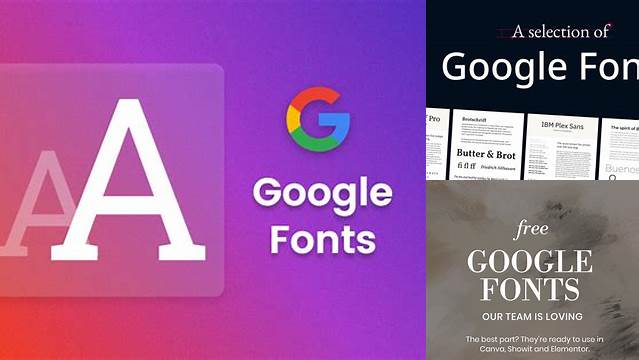
Best Google Fonts: Elevate Your Website's Design
Choosing the right fonts can dramatically improve your website's appeal and readability. With Google Fonts, you have a vast library of free, high-quality fonts at your fingertips. This article will guide you through the top Google Fonts for websites, helping you make informed decisions to elevate your site's design. Let's dive in!
1. Understanding the Importance of Font Choice
Guys, let's talk fonts! Choosing the right font for your website is way more important than you might think. It's not just about making things look pretty (though that's definitely a bonus!). Your font choice significantly impacts readability, user experience, and even your brand's overall perception. Think about it: a cluttered, hard-to-read font can drive visitors away faster than you can say "bounce rate." A clean, professional font, on the other hand, can keep them engaged and coming back for more.
So, how do you pick the perfect font? First, consider your target audience. Are you catering to a younger, more casual crowd? Or are you aiming for a sophisticated, corporate vibe? Your font should reflect that. Next, think about the content itself. Is it long-form articles, short snippets of text, or something in between? Different fonts work better for different types of content. And finally, don't forget about readability. Even the most beautiful font is useless if no one can actually read it! So, take your time, experiment with different options, and find a font that not only looks great but also enhances the overall user experience.
To further elaborate, remember that a font is more than just the letters; it's the personality of your text. A playful, quirky font might be perfect for a children's website, but it would look completely out of place on a law firm's page. Similarly, a heavy, bold font might convey strength and authority, while a lighter, more delicate font could evoke feelings of elegance and sophistication. Your font choice should always align with your brand's identity and the message you're trying to convey.
2. Top Google Fonts for Headlines: Making a Statement
Headlines are your chance to grab attention and make a statement. When it comes to headline fonts, you want something that's bold, eye-catching, and easy to read. Some fantastic choices from Google Fonts include Montserrat, Playfair Display, and Raleway. Montserrat is a versatile sans-serif font that works well in a variety of contexts. Playfair Display is a classic serif font with a touch of elegance, perfect for more sophisticated websites. And Raleway is a modern sans-serif font that's both stylish and readable. Remember, your headlines are the first thing visitors see, so make sure they make a lasting impression.
Also think about contrast. If your body text is a simple sans-serif, consider using a more decorative serif font for your headlines to create visual interest. Or, if your body text is already quite bold, you might want to opt for a lighter, more understated headline font. The key is to create a harmonious balance that's both visually appealing and easy on the eyes. Don't be afraid to experiment with different font pairings until you find something that feels just right. And remember, less is often more. A clean, simple headline font can be just as effective (if not more so) than a flashy, over-the-top one.
Don't underestimate the power of size and spacing either. Your headlines should be significantly larger than your body text to create a clear visual hierarchy. And pay attention to line height and letter spacing to ensure optimal readability. A headline that's too cramped or too spread out can be just as difficult to read as one that's in a bad font. So, take the time to fine-tune these details and make sure your headlines are as impactful as possible.
3. Best Google Fonts for Body Text: Readability is Key
For body text, readability is paramount. You want a font that's easy on the eyes and won't cause fatigue, even after reading long passages. Some great options from Google Fonts include Open Sans, Lato, and Roboto. Open Sans is a clean, neutral sans-serif font that's incredibly versatile. Lato is a slightly more rounded sans-serif font that feels warm and friendly. And Roboto is a modern sans-serif font that's both stylish and highly readable. These fonts are all designed to be comfortable to read, even at small sizes, making them perfect for body text.
Consider the overall tone and style of your website when choosing a body text font. If you're going for a modern, minimalist look, a clean sans-serif font like Open Sans or Lato would be a great choice. If you want something with a bit more personality, you could try a slightly more decorative sans-serif font like Montserrat or Raleway. And if you're aiming for a classic, traditional feel, a serif font like Georgia or Times New Roman might be a good option. Just make sure whatever font you choose is easy to read and doesn't distract from your content.
Also, pay attention to the font size and line height. Your body text should be large enough to be easily readable, but not so large that it feels overwhelming. And the line height should be generous enough to allow the eye to move comfortably from one line to the next. A good rule of thumb is to set the line height to around 1.5 times the font size. Experiment with different settings until you find something that feels comfortable and visually appealing.
4. Pairing Google Fonts: Creating Visual Harmony
Pairing fonts can be tricky, but when done right, it can create a visually stunning and harmonious website. A common approach is to pair a serif font for headlines with a sans-serif font for body text, or vice versa. This creates contrast and visual interest, while still maintaining readability. For example, you could pair Playfair Display (a serif font) with Open Sans (a sans-serif font), or Montserrat (a sans-serif font) with Merriweather (a serif font). There are tons of great combinations out there, so don't be afraid to experiment and find what works best for your site.
Use online tools and resources to help you find font pairings. There are many websites and apps that offer suggestions for font combinations that work well together. These tools can be a great way to get inspired and discover new and interesting font pairings that you might not have thought of on your own. Just remember to take these suggestions with a grain of salt and always test them out on your own website to see how they look in context.
Consider the overall design and branding of your website. Your font pairings should complement the other visual elements of your site, such as your logo, color scheme, and imagery. If you have a bold, modern logo, you might want to choose a clean, minimalist font pairing. If your website has a more traditional, elegant feel, you might opt for a classic serif and sans-serif combination. The key is to create a cohesive and harmonious visual experience that reflects your brand's identity.
5. Using Google Fonts Effectively: Best Practices
To use Google Fonts effectively, there are a few best practices to keep in mind. First, always link to Google Fonts in the <head> section of your HTML document. This ensures that the fonts are loaded quickly and efficiently. Second, specify the font-weight and font-style in your CSS to ensure that the fonts are displayed correctly. Third, test your fonts on different devices and browsers to make sure they look good across the board. And finally, don't use too many fonts on a single website. Stick to a maximum of two or three fonts to avoid creating a cluttered and confusing design.
Optimize your font loading for performance. Google Fonts are generally pretty lightweight, but if you're using a lot of different font weights or styles, it can still slow down your website's loading time. To optimize your font loading, only load the font weights and styles that you actually need. You can also use font-display: swap; in your CSS to ensure that your text is visible even before the fonts have fully loaded.
Consider using a web font loader to manage your fonts. Web font loaders are JavaScript libraries that help you load your web fonts asynchronously and provide more control over the font loading process. They can also help you detect when your fonts have finished loading and trigger a callback function to update your website's layout or perform other actions. Some popular web font loaders include Webfont Loader and Font Face Observer.
6. Google Fonts and SEO: Impact on Website Ranking
While Google Fonts themselves don't directly impact your website's SEO, they can indirectly influence your ranking. A well-designed website with readable fonts can improve user engagement, reduce bounce rates, and increase time on site. These are all factors that Google considers when ranking websites. So, by choosing the right Google Fonts and using them effectively, you can improve your website's overall user experience and boost your SEO.
Ensure your website is mobile-friendly. With more and more people browsing the web on their mobile devices, it's essential to make sure your website is optimized for mobile. This includes choosing fonts that are easily readable on small screens and ensuring that your website's layout is responsive and adapts to different screen sizes. Google gives preference to mobile-friendly websites in its search results, so optimizing your website for mobile is crucial for SEO.
Use semantic HTML and proper heading tags. Semantic HTML is HTML that uses meaningful tags to structure your content, such as <article>, <aside>, <nav>, and <footer>. Using semantic HTML can help Google understand the structure and content of your website, which can improve your SEO. Also, make sure to use proper heading tags (
, , , etc.) to structure your content and create a clear hierarchy. Google uses heading tags to understand the main topics and subtopics of your website, so using them correctly is important for SEO.
7. Exploring Serif Google Fonts for a Classic Look
, etc.) to structure your content and create a clear hierarchy. Google uses heading tags to understand the main topics and subtopics of your website, so using them correctly is important for SEO.
7. Exploring Serif Google Fonts for a Classic Look
If you're aiming for a classic, elegant look, serif Google Fonts are the way to go. These fonts have small decorative strokes (serifs) at the end of each letter, giving them a traditional and sophisticated feel. Some popular serif fonts include Playfair Display, Merriweather, and Lora. Playfair Display is great for headlines, while Merriweather and Lora are excellent choices for body text. Using serif fonts can add a touch of timeless elegance to your website.
Consider the personality and mood you want to convey. Serif fonts can evoke different feelings depending on their style and weight. A heavy, bold serif font can convey strength and authority, while a lighter, more delicate serif font can evoke feelings of elegance and sophistication. Choose a serif font that aligns with your brand's identity and the message you're trying to convey.
Pair serif fonts with sans-serif fonts for a balanced look. A common design technique is to pair a serif font for headlines with a sans-serif font for body text, or vice versa. This creates contrast and visual interest, while still maintaining readability. For example, you could pair Playfair Display (a serif font) with Open Sans (a sans-serif font), or Montserrat (a sans-serif font) with Merriweather (a serif font).
8. Sans-Serif Google Fonts: Modern and Clean
For a modern and clean aesthetic, sans-serif Google Fonts are an excellent choice. These fonts lack the serifs, giving them a simple and minimalist appearance. Open Sans, Lato, and Roboto are fantastic sans-serif options that are widely used for websites. They are highly readable and versatile, making them suitable for various design styles.
Use sans-serif fonts for body text to improve readability. Sans-serif fonts are generally easier to read on screens than serif fonts, especially at smaller sizes. This makes them an ideal choice for body text, where readability is paramount. A clean, simple sans-serif font can help your readers focus on your content without being distracted by ornate letterforms.
Mix and match sans-serif fonts with different weights and styles. Even within the sans-serif category, there's a wide range of different styles and weights to choose from. You can create visual interest and hierarchy by using different weights of the same font for headlines and body text, or by pairing two different sans-serif fonts that complement each other.
9. Display Google Fonts: Adding Personality and Flair
Display Google Fonts are designed to be eye-catching and attention-grabbing. They're perfect for headlines, logos, and other prominent design elements where you want to make a statement. Some popular display fonts include Lobster, Pacifico, and Dancing Script. These fonts have unique and distinctive styles that can add personality and flair to your website.
Use display fonts sparingly and strategically. Display fonts are not meant to be used for long passages of text, as they can be difficult to read. Instead, use them sparingly and strategically to highlight key elements of your design, such as headlines, logos, or call-to-action buttons. A little bit of a display font can go a long way in adding personality and visual interest to your website.
Pair display fonts with more neutral fonts for a balanced look. Because display fonts are so visually dominant, it's important to pair them with more neutral fonts for body text and other supporting elements. This will help to create a balanced and harmonious design that's both eye-catching and easy to read. A good rule of thumb is to use a simple sans-serif font like Open Sans or Lato for body text when using a display font for headlines.
10. Monospace Google Fonts: Coding and Technical Content
Monospace Google Fonts are a unique category where each character occupies the same amount of horizontal space. This makes them ideal for displaying code, technical content, and other situations where consistent spacing is important. Some excellent monospace fonts include Source Code Pro, Fira Mono, and Roboto Mono. These fonts are clean, readable, and specifically designed for technical environments.
Use monospace fonts for code snippets and technical documentation. Monospace fonts are essential for displaying code snippets and technical documentation, as they ensure that the code is properly aligned and easy to read. The consistent spacing of monospace fonts makes it easier to identify syntax errors and other issues in the code.
Consider using a different font for the rest of your website. While monospace fonts are great for displaying code, they're not typically used for the rest of the website's content. This is because they can be less readable than other font types, especially for long passages of text. It's generally best to use a different font for the main body of your website and reserve monospace fonts for code snippets and technical documentation.
11. Font Weight and Style: Creating Visual Hierarchy
Font weight and style (e.g., bold, italic) are powerful tools for creating visual hierarchy and emphasizing important information on your website. By varying the weight and style of your fonts, you can guide the reader's eye and highlight key elements of your content. Use bold text to emphasize important keywords or phrases, and use italics to add nuance or indicate quoted material.
Use different font weights to create a visual hierarchy. Different font weights (e.g., 100, 300, 400, 700, 900) can be used to create a visual hierarchy and guide the reader's eye. Use heavier font weights for headlines and subheadings to make them stand out, and use lighter font weights for body text to make it easier to read. A well-defined visual hierarchy can make your content more engaging and easier to understand.
Use italics sparingly to add emphasis and nuance. Italics can be a great way to add emphasis and nuance to your text, but they should be used sparingly. Overusing italics can make your text look cluttered and difficult to read. Reserve italics for quoted material, book titles, and other situations where you want to add a subtle touch of emphasis.
12. Font Size and Line Height: Optimizing Readability
Font size and line height are critical factors in optimizing readability. Your font size should be large enough to be easily readable, but not so large that it feels overwhelming. And your line height (the vertical space between lines of text) should be generous enough to allow the eye to move comfortably from one line to the next. A good rule of thumb is to set the line height to around 1.5 times the font size.
Use a font size that is comfortable to read on different devices. With more and more people browsing the web on their mobile devices, it's important to choose a font size that is comfortable to read on small screens. A font size of 16px is generally considered to be a good starting point for body text, but you may need to adjust it depending on the specific font and your target audience.
Adjust the line height to improve readability. The line height can have a significant impact on readability. A line height that is too small can make the text feel cramped and difficult to read, while a line height that is too large can make the text feel disconnected. Experiment with different line heights until you find something that feels comfortable and visually appealing.
13. Letter Spacing and Word Spacing: Fine-Tuning Typography
Letter spacing (the horizontal space between letters) and word spacing (the horizontal space between words) are subtle but important aspects of typography. Fine-tuning these settings can improve the overall readability and visual appeal of your text. In general, you want to avoid letter spacing that is too tight or too loose, as both can make the text difficult to read.
Adjust letter spacing to improve readability and visual appeal. The default letter spacing for most fonts is usually fine, but you may want to adjust it slightly to improve readability or visual appeal. If the letters in your font are too close together, you can increase the letter spacing to make them more distinct. If the letters are too far apart, you can decrease the letter spacing to make the text feel more cohesive.
Use word spacing to create visual rhythm and flow. Word spacing can also be used to create visual rhythm and flow in your text. A slightly wider word spacing can make the text feel more open and airy, while a narrower word spacing can make the text feel more compact and dense. Experiment with different word spacings until you find something that feels right for your specific font and content.
14. Color Contrast: Ensuring Accessibility and Readability
Color contrast is a critical factor in ensuring accessibility and readability. Your text color should have sufficient contrast with the background color to make it easy to read for people with visual impairments. The Web Content Accessibility Guidelines (WCAG) recommend a contrast ratio of at least 4.5:1 for normal text and 3:1 for large text.
Use online tools to check color contrast. There are many online tools available that can help you check the color contrast of your text and background. These tools will calculate the contrast ratio and tell you whether it meets the WCAG guidelines. Some popular color contrast checkers include WebAIM's Contrast Checker and Accessible Colors.
Consider using a dark text on a light background. In general, a dark text on a light background is easier to read than a light text on a dark background. This is because our eyes are naturally drawn to dark objects on light backgrounds. However, there are situations where a light text on a dark background may be appropriate, such as for headlines or call-to-action buttons.
15. Responsive Typography: Adapting to Different Screen Sizes
Responsive typography is the practice of adapting your typography to different screen sizes and devices. This ensures that your text is always readable and visually appealing, regardless of how your website is being viewed. To achieve responsive typography, you can use CSS media queries to adjust the font size, line height, letter spacing, and other typographic properties based on the screen size.
Use CSS media queries to adjust font sizes for different screen sizes. CSS media queries allow you to apply different styles based on the screen size, device orientation, or other characteristics of the user's device. You can use media queries to adjust the font size of your text for different screen sizes, ensuring that it is always readable and comfortable to read.
Consider using relative units for font sizes and line heights. Relative units, such as em and rem, are based on the font size of the root element or the parent element. This makes them ideal for creating responsive typography, as they will automatically scale based on the font size. Using relative units can help you create a more fluid and adaptable design that looks great on any device.
16. Web Font Optimization: Improving Website Performance
Web font optimization is the process of improving the performance of your website by optimizing the way your web fonts are loaded and displayed. Web fonts can add significant weight to your website, so it's important to optimize them to ensure that they don't slow down your site. Some common web font optimization techniques include using font subsets, compressing font files, and caching font files.
Use font subsets to reduce font file size. Font subsets are smaller versions of your font files that only contain the characters that are actually used on your website. By using font subsets, you can significantly reduce the size of your font files, which can improve your website's loading time. Many web font services, such as Google Fonts, offer font subsets as an option.
Consider using a CDN to serve your web fonts. A Content Delivery Network (CDN) is a network of servers that are distributed around the world. By serving your web fonts from a CDN, you can ensure that they are loaded quickly and efficiently for users all over the world. Some popular CDN providers include Cloudflare, Amazon CloudFront, and Google Cloud CDN.
17. Font Licensing: Understanding Usage Rights
Font licensing is an important consideration when using web fonts. Most fonts are not free to use for any purpose, and you need to obtain a license that grants you the right to use the font in a particular way. Google Fonts are generally licensed under the Open Font License (OFL), which allows you to use, modify, and distribute the fonts for free, even for commercial purposes. However, it's always a good idea to check the specific license for each font to make sure you are complying with the terms of use.
Check the license terms before using any font. Before using any font, whether it's a Google Font or a font from another source, make sure to check the license terms to understand your usage rights. The license terms will specify how you are allowed to use the font, whether you can modify it, and whether you can distribute it to others.
Attribute the font designer when required. Some font licenses require you to attribute the font designer when using the font. This is a way of giving credit to the creator of the font and promoting their work. If the font license requires attribution, make sure to include a statement on your website or in your design credits that acknowledges the font designer.
18. Testing Your Fonts: Ensuring Cross-Browser Compatibility
Testing your fonts is an essential step in the design process. You need to test your fonts on different browsers and devices to make sure they are rendering correctly and consistently. Different browsers may render fonts differently, so it's important to identify any compatibility issues early on.
Use browser developer tools to inspect font rendering. Most browsers have built-in developer tools that allow you to inspect the font rendering on your website. You can use these tools to see which fonts are being used, how they are being rendered, and whether there are any rendering issues.
Test your fonts on different devices and operating systems. In addition to testing your fonts on different browsers, you should also test them on different devices and operating systems. This will help you identify any device-specific or operating system-specific rendering issues. For example, some fonts may render differently on Windows than they do on macOS.
19. Mobile Font Optimization: Enhancing Mobile User Experience
Mobile font optimization is the process of optimizing your web fonts for mobile devices. Mobile devices have smaller screens and limited bandwidth, so it's important to optimize your fonts to ensure that they load quickly and render correctly. Some common mobile font optimization techniques include using font subsets, compressing font files, and using responsive typography.
Use font subsets to reduce font file size for mobile devices. Font subsets are smaller versions of your font files that only contain the characters that are actually used on your website. By using font subsets, you can significantly reduce the size of your font files, which can improve your website's loading time on mobile devices.
Prioritize readability on smaller screens. When choosing fonts for mobile devices, prioritize readability over aesthetics. Choose fonts that are easy to read on small screens, even at smaller font sizes. Avoid using overly decorative or complex fonts, as they can be difficult to read on mobile devices.
20. Dynamic Font Loading: Improving Perceived Performance
Dynamic font loading is a technique that allows you to load your web fonts asynchronously, after the main content of your website has loaded. This can improve the perceived performance of your website, as it allows users to start viewing the content immediately, without having to wait for the fonts to load. Dynamic font loading can be implemented using JavaScript or CSS.
Use JavaScript to load fonts asynchronously. JavaScript can be used to load your web fonts asynchronously, after the main content of your website has loaded. This can be achieved by using the FontFace API, which allows you to load and register font faces dynamically. By loading your fonts asynchronously, you can improve the perceived performance of your website and provide a better user experience.
Consider using a font loading library. There are many font loading libraries available that can simplify the process of dynamic font loading. These libraries provide a convenient API for loading fonts asynchronously and handling font loading events. Some popular font loading libraries include Web Font Loader and Font Face Observer.
21. Variable Fonts: The Future of Web Typography
Variable fonts are a new font format that allows you to pack multiple font variations into a single font file. This can significantly reduce the size of your font files and improve the performance of your website. Variable fonts also offer greater flexibility and control over your typography, as they allow you to adjust various font properties, such as weight, width, and slant, on the fly.
Explore the possibilities of variable fonts. Variable fonts are a relatively new technology, but they have the potential to revolutionize web typography. Explore the possibilities of variable fonts and experiment with different font properties to create unique and dynamic typographic designs.
Use variable fonts to create responsive typography. Variable fonts can be used to create responsive typography that adapts to different screen sizes and devices. By adjusting the font weight, width, and slant based on the screen size, you can create a more fluid and adaptable design that looks great on any device.
22. Accessibility Considerations for Google Fonts
Accessibility is a critical aspect of web design, and it's important to consider accessibility when choosing and using Google Fonts. Ensure that your font choices meet accessibility guidelines, such as those provided by the Web Content Accessibility Guidelines (WCAG), to make your website usable for people with disabilities.
Ensure sufficient color contrast between text and background. Color contrast is a key factor in accessibility. Ensure that there is sufficient color contrast between your text and background colors to make your text easy to read for people with visual impairments. The WCAG recommends a contrast ratio of at least 4.5:1 for normal text and 3:1 for large text.
Provide alternative text for images and icons that use fonts. If you are using fonts to create images or icons, make sure to provide alternative text that describes the image or icon. This will allow screen readers to convey the meaning of the image or icon to visually impaired users.
23. Combining Google Fonts with Other Font Services
While Google Fonts offers a vast selection of free fonts, you may want to combine them with fonts from other font services to create a unique and distinctive typographic design. Many font services offer premium fonts that are not available on Google Fonts, and combining these fonts with Google Fonts can add a touch of sophistication and originality to your website.
Consider using premium fonts for branding elements. Premium fonts can be a great choice for branding elements, such as logos and headlines. These fonts often have a more unique and distinctive style than free fonts, which can help you create a strong and memorable brand identity.
Ensure consistent font rendering across different services. When combining fonts from different services, make sure to test them thoroughly to ensure that they are rendering consistently across different browsers and devices. Different font services may use different rendering engines, which can lead to inconsistencies in the way your fonts are displayed.
24. Typography Trends and Google Fonts
Typography trends are constantly evolving, and it's important to stay up-to-date on the latest trends to create a modern and stylish website. Google Fonts offers a wide selection of fonts that reflect current typography trends, such as geometric sans-serifs, bold display fonts, and vintage-inspired serifs.
Experiment with bold and oversized typography. Bold and oversized typography is a popular trend that can be used to create a strong visual impact. Experiment with using bold and oversized fonts for headlines and other prominent design elements to make a statement.
Use vintage-inspired serifs for a classic and timeless look. Vintage-inspired serifs are another popular trend that can be used to create a classic and timeless look. These fonts often have a more decorative and ornate style than modern serifs, which can add a touch of elegance and sophistication to your website.
25. Best Practices for Choosing Google Fonts for E-commerce
Choosing the right Google Fonts for your e-commerce website is crucial for creating a visually appealing and user-friendly online shopping experience. Prioritize readability, consistency, and branding to ensure that your font choices support your sales goals and enhance your customer's journey.
Ensure fonts are easy to read on product pages. Product pages are the heart of your e-commerce website, so it's essential to ensure that the fonts are easy to read and scan. Use clean and legible fonts for product descriptions, prices, and other important details.
Use consistent fonts across your entire e-commerce website. Consistency is key in e-commerce design. Use the same fonts consistently across your entire website, from the homepage to the checkout page, to create a cohesive and professional brand image.
26. Google Fonts and Branding: Creating a Visual Identity
Google Fonts play a significant role in creating a strong visual identity for your brand. Your font choices communicate your brand's personality, values, and target audience. Select fonts that align with your brand's overall aesthetic and message to reinforce your brand identity.
Choose fonts that reflect your brand's personality. Your fonts should reflect your brand's personality and values. If your brand is modern and minimalist, choose clean and simple sans-serif fonts. If your brand is classic and elegant, choose traditional serif fonts.
Use a consistent font palette across all your branding materials. Consistency is crucial for building a strong brand identity. Use the same font palette across all your branding materials, including your website, logo, marketing materials, and social media profiles.
27. Combining Google Fonts with Images: Visual Harmony
The combination of Google Fonts and images is a powerful way to create visual harmony on your website. Choose fonts that complement your images and create a cohesive and visually appealing design. Consider the color, style, and mood of your images when selecting your fonts.
Choose fonts that complement the style of your images. Your fonts should complement the style of your images. If your images are modern and minimalist, choose clean and simple sans-serif fonts. If your images are vintage-inspired, choose classic serif fonts.
Use color to create a visual connection between fonts and images. Color can be used to create a visual connection between your fonts and images. Choose font colors that complement the colors in your images to create a cohesive and harmonious design.
28. Using Google Fonts in Print Design: Considerations
While Google Fonts are primarily designed for web use, they can also be used in print design. However, there are some considerations to keep in mind when using Google Fonts in print, such as font resolution, color management, and licensing.
Ensure sufficient font resolution for print. Print design requires high-resolution fonts to ensure that they are crisp and clear. Google Fonts are typically designed for screen use, so you may need to adjust the font resolution to ensure that they look good in print.
Use CMYK color mode for print design. Print design uses the CMYK color mode (Cyan, Magenta, Yellow, and Key/Black), while web design uses the RGB color mode (Red, Green, and Blue). Make sure to convert your font colors to CMYK before using them in print design.
29. Google Fonts and Email Marketing: Tips and Tricks
Using Google Fonts in email marketing can enhance the visual appeal of your emails and improve engagement. However, email clients have limited font support, so it's important to use web-safe fonts or provide fallback options for email clients that don't support Google Fonts.
Use web-safe fonts as a fallback option. Web-safe fonts are fonts that are commonly installed on most computers, such as Arial, Times New Roman, and Courier New. Use these fonts as a fallback option for email clients that don't support Google Fonts to ensure that your emails are readable.
Use images to display custom fonts. If you want to use custom fonts in your emails but are concerned about font support, you can use images to display the text in your desired font. However, be mindful of image sizes and alt text for accessibility.
30. Troubleshooting Common Google Fonts Issues
Even with careful planning, you may encounter issues when using Google Fonts on your website. Common issues include font loading problems, rendering inconsistencies, and browser compatibility issues. Troubleshooting these issues requires a systematic approach and a good understanding of web development principles.